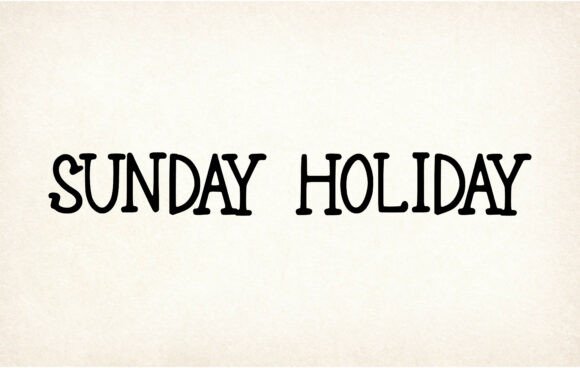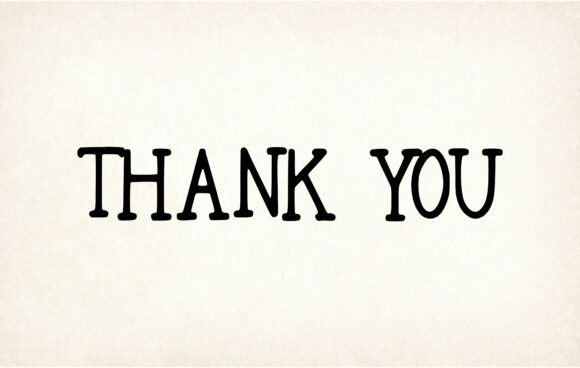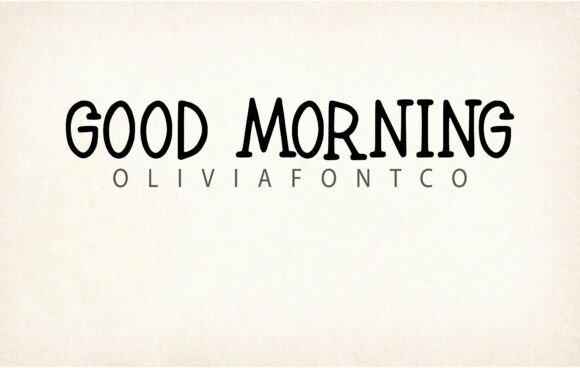
Unlock Your Creative Potential with Good Morning Font
Are you tired of using the same old fonts for your designs? Look no further! Introducing the Good Morning Font, expertly designed to be a true favorite among designers and crafters. With its exceptional legibility and versatility, this font has the potential to take your creative ideas to the highest level.
What Makes Good Morning Font Stand Out?
The Good Morning Font is not just another font; it’s a game-changer. Its unique design makes it perfect for a wide range of applications, from magazine headlines to t-shirt designs, social media posts, branding, wedding invitations, cards, and more. Whether you’re a professional designer or a crafty DIY enthusiast, this font is sure to become your go-to choice.
Key Features of Good Morning Font
- Legibility: The Good Morning Font is designed to be highly legible, making it perfect for both title and body text. Its clear and crisp design ensures that your message is conveyed effectively, regardless of the context.
- Versatility: This font is incredibly versatile, suitable for a wide range of design projects. From bold magazine headlines to elegant wedding invitations, the Good Morning Font adapts seamlessly to any style or theme.
- High-Quality Design: Expertly crafted with attention to detail, this font is a testament to superior design. Its unique characteristics make it stand out from more generic fonts, giving your designs a professional edge.
The Good Morning Font opens up a world of creative possibilities. Here are just a few ideas to get you started:
- Magazine Headlines: Create eye-catching headlines that grab readers’ attention and set the tone for your publication.
- T-Shirt Designs: Add a stylish touch to your apparel designs, making them stand out with a unique and memorable font.
- Social Media Graphics: Elevate your social media presence with professional-looking graphics that incorporate the Good Morning Font.
- Branding: Establish a strong brand identity with a font that communicates your message clearly and effectively.
- Wedding Invitations and Cards: Add an elegant and personal touch to your wedding invitations, greeting cards, and other stationery.
Why Choose Good Morning Font?
In a world where design plays a crucial role in communication, having the right font can make all the difference. Here are a few reasons why the Good Morning Font should be your top choice:
- Unique Style: Stand out from the crowd with a font that has a distinct personality.
- Easy to Read: Ensure your message is understood with a font that prioritizes legibility.
- Flexible: Use it across various platforms and design projects without compromising on style or quality.
The Good Morning Font is more than just a font; it’s a tool that can elevate your designs and help you communicate your message more effectively. Whether you’re a seasoned designer or just starting out, this font is sure to become an indispensable part of your creative toolkit. So why wait? Explore the possibilities with the Good Morning Font today and take your designs to new heights!